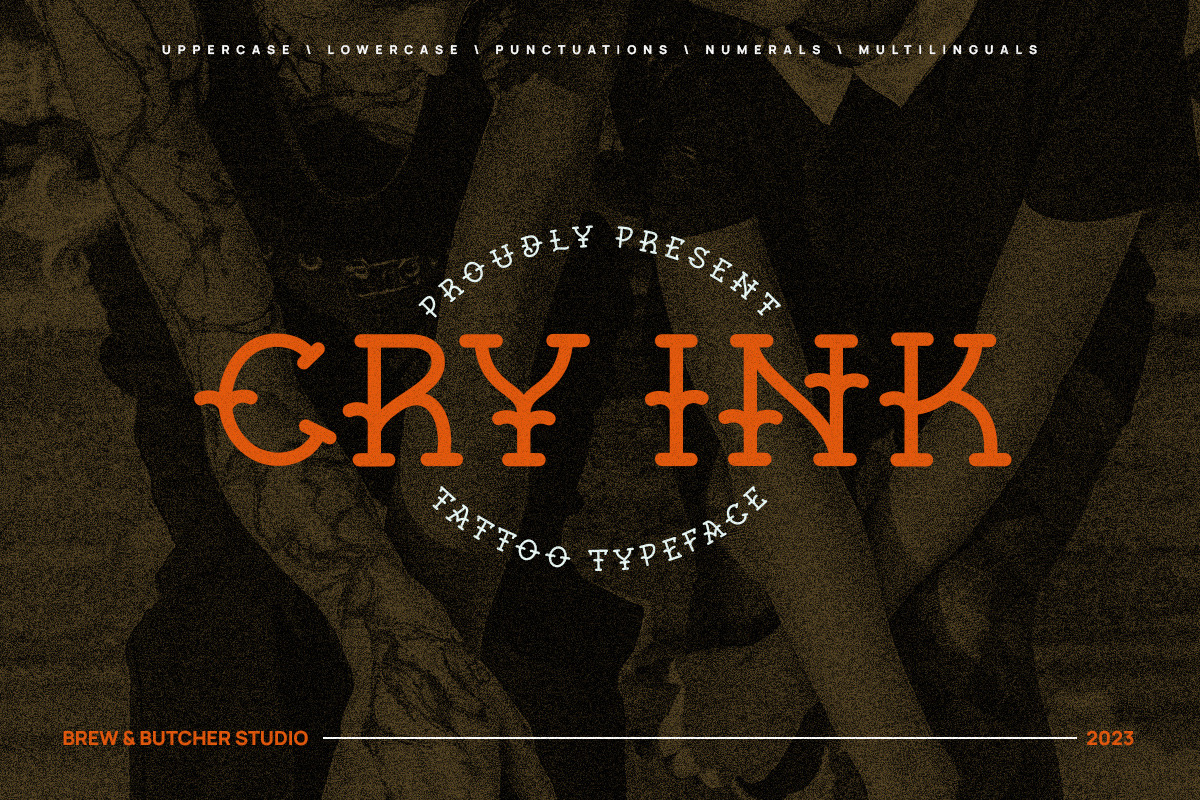
Cry Ink | Tattoos Typeface
Cry Ink font is inspired by tattoo culture, with old school tattoo accents. It has a thick tang shape and there are prominent features on the edge of the font. Oldschool is a tattoo style that is popular with young people, and this font has a unity between modern and classic styles. This font is best to use for header or headline, poster, flyer, banner, landingpage, portfolio, name write, album covers, and etc.